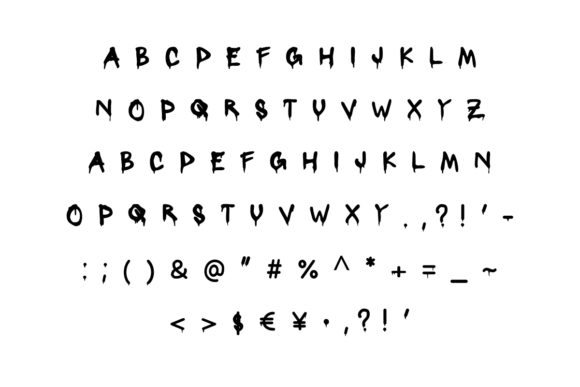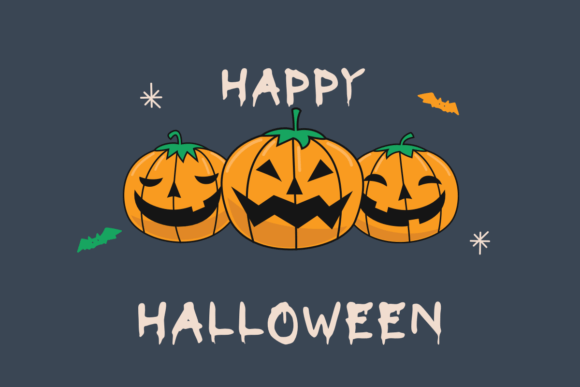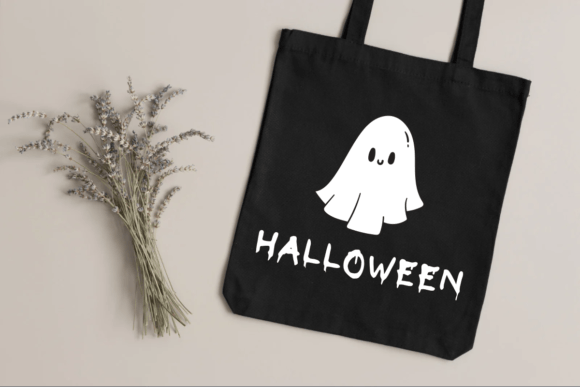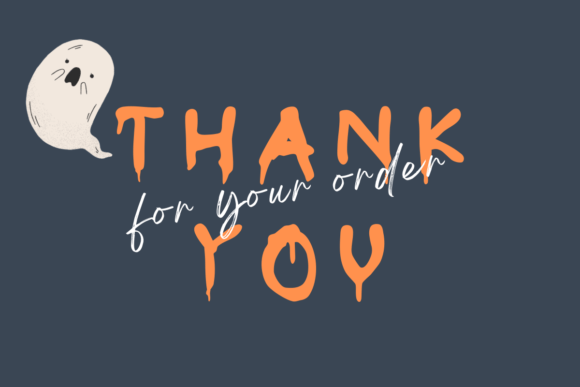
Happy Halloween Font: Add a Spooky Touch to Your Decorations
Halloween is just around the corner, and what better way to get into the spooky spirit than with a creepy and fun font? Look no further than the Happy Halloween font, featuring the phrase “Happy Halloween” written in a spooky, dripping font that looks like it’s made of slime or melting wax. This eerie font is perfect for giving a creepy, haunted feel to your Halloween decorations and messages.
The Perfect Font for Halloween Enthusiasts
The Happy Halloween font is a must-have for designers, crafters, and Halloween enthusiasts alike. Its unique, dripping design makes it stand out from other fonts, adding a touch of spookiness to any project. Whether you’re creating Halloween party invitations, decorations, or social media posts, this font is sure to make your content stand out.
Key Features of the Happy Halloween Font
- Spooky and Dripping Design: The Happy Halloween font features a unique, dripping design that looks like it’s made of slime or melting wax, giving it a creepy and haunted feel.
- Perfect for Halloween Decorations: This font is ideal for adding a spooky touch to your Halloween decorations, including party invitations, banners, and signs.
- Versatile: This font can be used in a variety of projects, including digital and print designs, making it perfect for designers and crafters.
Ideas for Using the Happy Halloween Font
The Happy Halloween font is versatile and can be used in a variety of projects. Here are some ideas to get you started:
- Halloween Party Invitations: Create spooky and fun party invitations that will set the tone for your Halloween celebration.
- Decorations and Banners: Use the Happy Halloween font to create creepy and eye-catching decorations and banners for your Halloween party or event.
- Social Media Posts: Add a spooky touch to your social media posts with the Happy Halloween font, perfect for Halloween-themed posts and updates.
- Craft Projects: Use the Happy Halloween font in your craft projects, such as making Halloween cards, gift tags, and other DIY decorations.
Tips for Using the Happy Halloween Font
Here are some tips for using the Happy Halloween font in your designs and projects:
- Experiment with Colors: Try using different colors to match your Halloween theme, such as orange, black, and purple.
- Combine with Other Fonts: Combine the Happy Halloween font with other fonts to create a unique and eye-catching design.
- Add Graphics and Images: Add spooky graphics and images to your design to enhance the Halloween theme.
The Happy Halloween font is a must-have for anyone looking to add a spooky touch to their Halloween decorations and messages. Its unique, dripping design makes it perfect for Halloween enthusiasts, designers, and crafters. With its ease of use and versatility, this font is sure to be a hit in your Halloween projects. So, download the Happy Halloween font today and get creative with your Halloween designs!